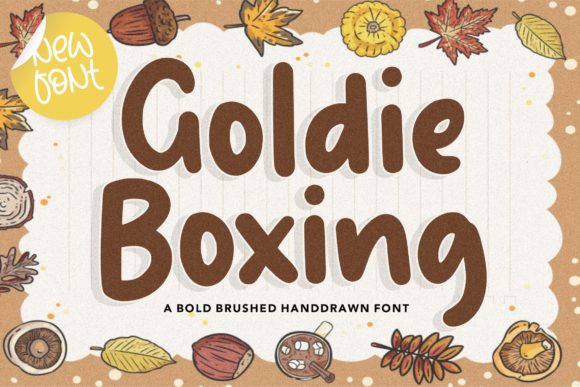
Introducing the Goldie Boxing Font—a robust, colorful, and vibrant display font that'll pack a punch to your designs. Balpirick, the creative genius behind this masterpiece, has infused it with the essence of autumn, capturing the warmth and charm of the falling leaves. It's a font that radiates personality and character, ready to transform your designs into something extraordinary.
With its bold, chunky letters and playful style, Goldie Boxing Font exudes an energy that's sure to grab attention. It's the perfect choice for projects that demand a touch of individuality and flair, whether it's logos, posters, social media graphics, or even website headers. Let the Goldie Boxing Font be your secret weapon to leave a lasting impression.
More than just a font, Goldie Boxing Font is an experience. It's an invitation to step into a world of imagination and creativity, where your designs come alive with a unique, captivating charm. It's a font that sparks conversation, ignites passion, and leaves a lasting impression on your audience.
Don't settle for ordinary fonts; embrace the extraordinary with Goldie Boxing Font. Unleash the creativity within you and watch as your designs transform into masterpieces. Be a part of the design revolution, where fonts aren't just letters—they're expressions of art, style, and personality.